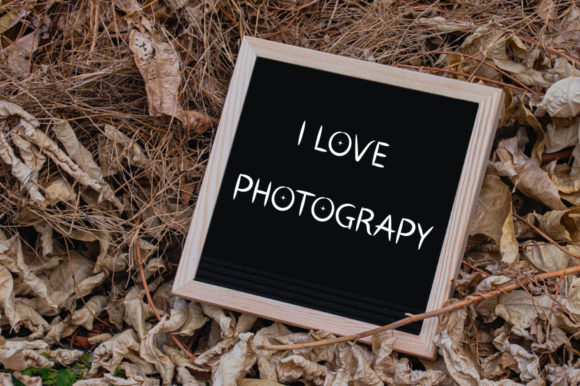
Introduction to Corporate Font
Have you ever been working on a creative project, pouring your heart and soul into it, only to be held back by the lack of the perfect font? You’ve spent hours browsing through design resources, searching for that one font that will elevate your design and make it truly stand out. If you’re a designer, you know how frustrating it can be to find the right font, especially when you’re working on a high-stakes project like a company logo or a magazine title.
That’s where the Corporate Font comes in – a beautiful, elegant font that’s perfect for adding a touch of sophistication to your design. With its bold and regular styles, this font is a valuable resource for any designer looking to take their work to the next level. Whether you’re working on a free download project or a high-quality commercial design, the Corporate Font is sure to impress.
So, what makes the Corporate Font so special? For one, it’s incredibly versatile, with a wide range of applications from t-shirts to business cards, and everything in between. Plus, with its transparent background and high-quality design, it’s the perfect choice for any designer looking to add a professional touch to their work.
Key Features of Corporate Font
- High-quality, professional design suitable for corporate projects and presentations.
- Comes with a transparent background, allowing for easy integration into creative projects.
- Features a clean, modern design with a wide range of font sizes and resolutions (up to 300 DPI).
- Perfect for use in business, finance, and technology-related creative projects.
- Includes a comprehensive character set, including uppercase and lowercase letters, numbers, and punctuation.
- Designed to be highly legible and readable in both print and digital formats.
Honest Review: Corporate Font
As a designer, I’m always on the lookout for high-quality design resources to elevate my creative projects. Recently, I stumbled upon the “Corporate Font” and I have to say, it’s been a game-changer. ✨
- High-quality vectors that can be scaled up without any loss of detail
- Transparent background option for seamless integration into any design
- Limited character set, which may not be suitable for complex text-based designs ⚠️
- No customization options, which may limit its appeal for designers who like to experiment
Overall, I’m impressed with the Corporate Font. It’s a solid addition to any designer’s toolkit, and the free download option makes it a great resource for anyone looking to elevate their creative project. With a little creativity, the Corporate Font can help take your designs to the next level.
Using Corporate Font in Creative Projects
Tips for Getting the Most Out of Corporate Font
When using Corporate Font, keep in mind the following tips:
- Use a transparent background to create a clean and modern look.
- Experiment with different font sizes and colors to create visual interest.
- Combine Corporate Font with other design elements to create a cohesive look.
Corporate Font is commonly used in the following scenarios:
- Business presentations and proposals.
- Marketing materials, such as brochures and flyers.
- Branding and logo design.
Alternatives to Corporate Font
Open Sans is a popular, high-quality sans-serif font that is ideal for creative projects requiring a modern and clean look. It is available for free download and can be used for both personal and commercial projects. When to use: Web design, mobile apps, and digital signage. Comparison to Corporate Font: Open Sans is more versatile and comes in a wider range of weights, making it a better choice for creative projects.
Lato is a beautiful, high-quality sans-serif font that is perfect for design projects requiring a touch of elegance. It has a transparent background, making it suitable for use on dark backgrounds. When to use: Magazine and newspaper design, book covers, and branding materials. Comparison to Corporate Font: Lato is more refined and has a softer look, making it a better choice for projects that require a touch of sophistication.